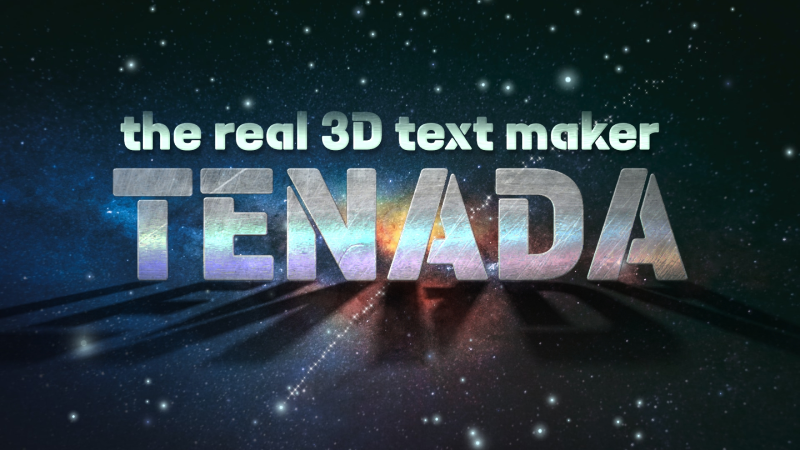
TENADA font is a modern style font with a stencil design. The font includes English, Korean, Latin-1 Supplement, Latin Extended-A, Cyrillic, Greek, and Coptic. This font is licensed under the SIL Open Font License, Version 1.1. You can use them freely in your products & projects - print or digital, commercial, or otherwise. However, you can't sell the font on their own. Stencil fonts are fancy when rendering in 3D because they have a small space in the middle of the characters. 3D shadows are an example. We�re making a 3D text app TENADA that displays text nicely. Please try it and let us know what you find interesting, uncomfortable, or necessary. We always welcome your feedback!😀 == * iOS AppStore: https://apps.apple.com/us/app/%ED%83%9C%EB%82%98%EB%8B%A4/id1557814350 * Google Play Store: https://play.google.com/store/apps/details?id=com.tenada.android&utm_source=dafont&utm_medium=organic * Homepage: https://en.tenada.co.kr/ * Instagram: https://www.instagram.com/tenada_app |